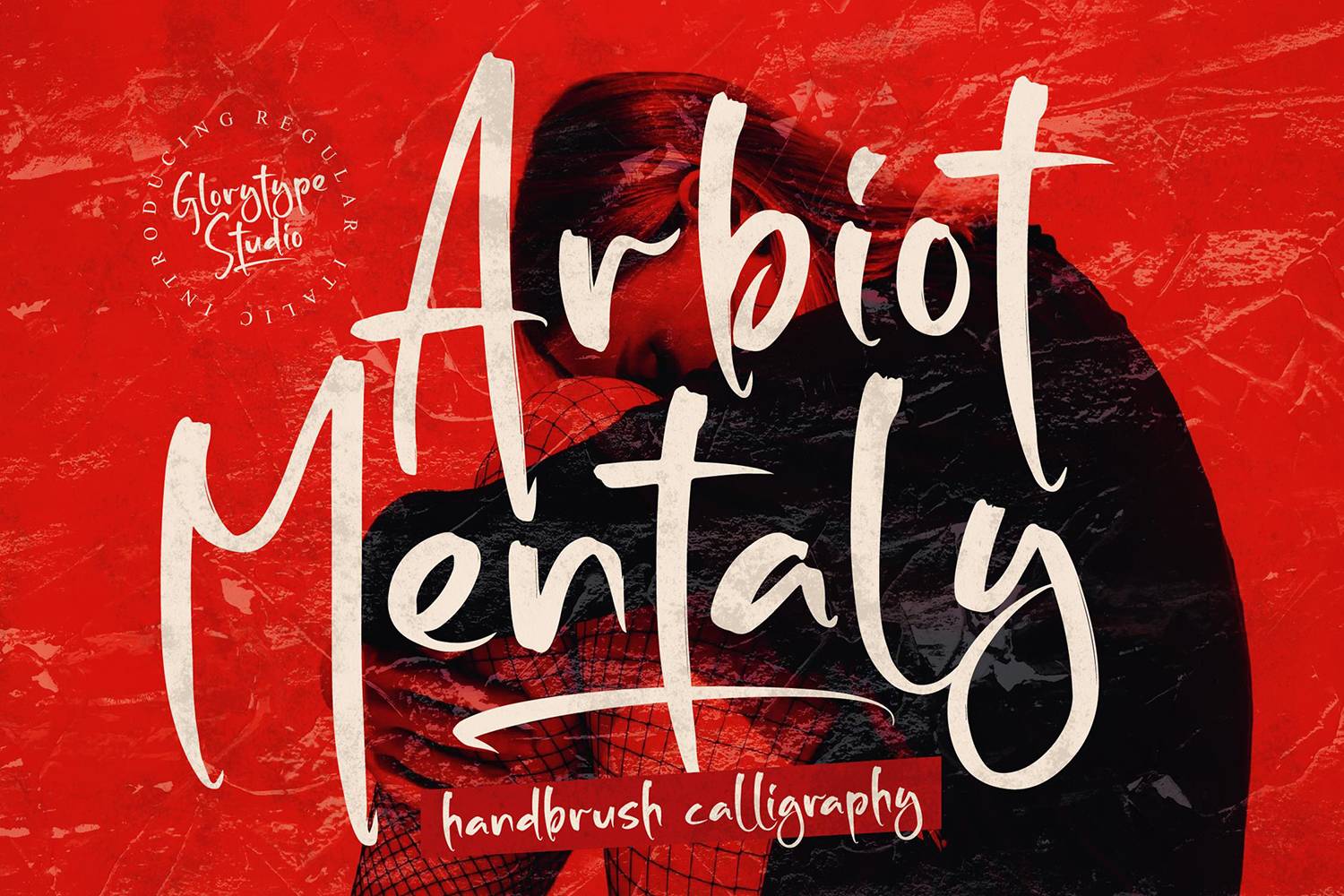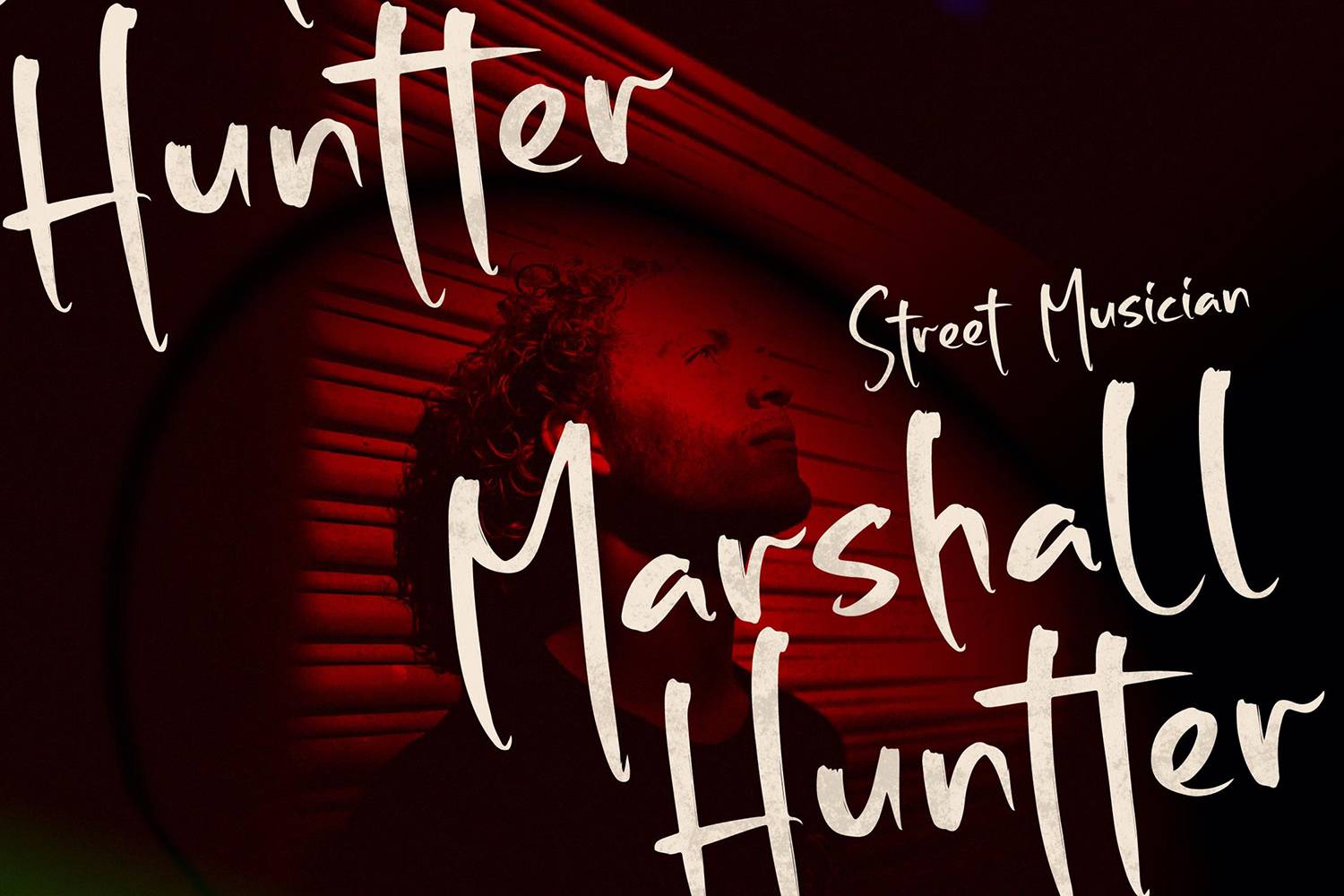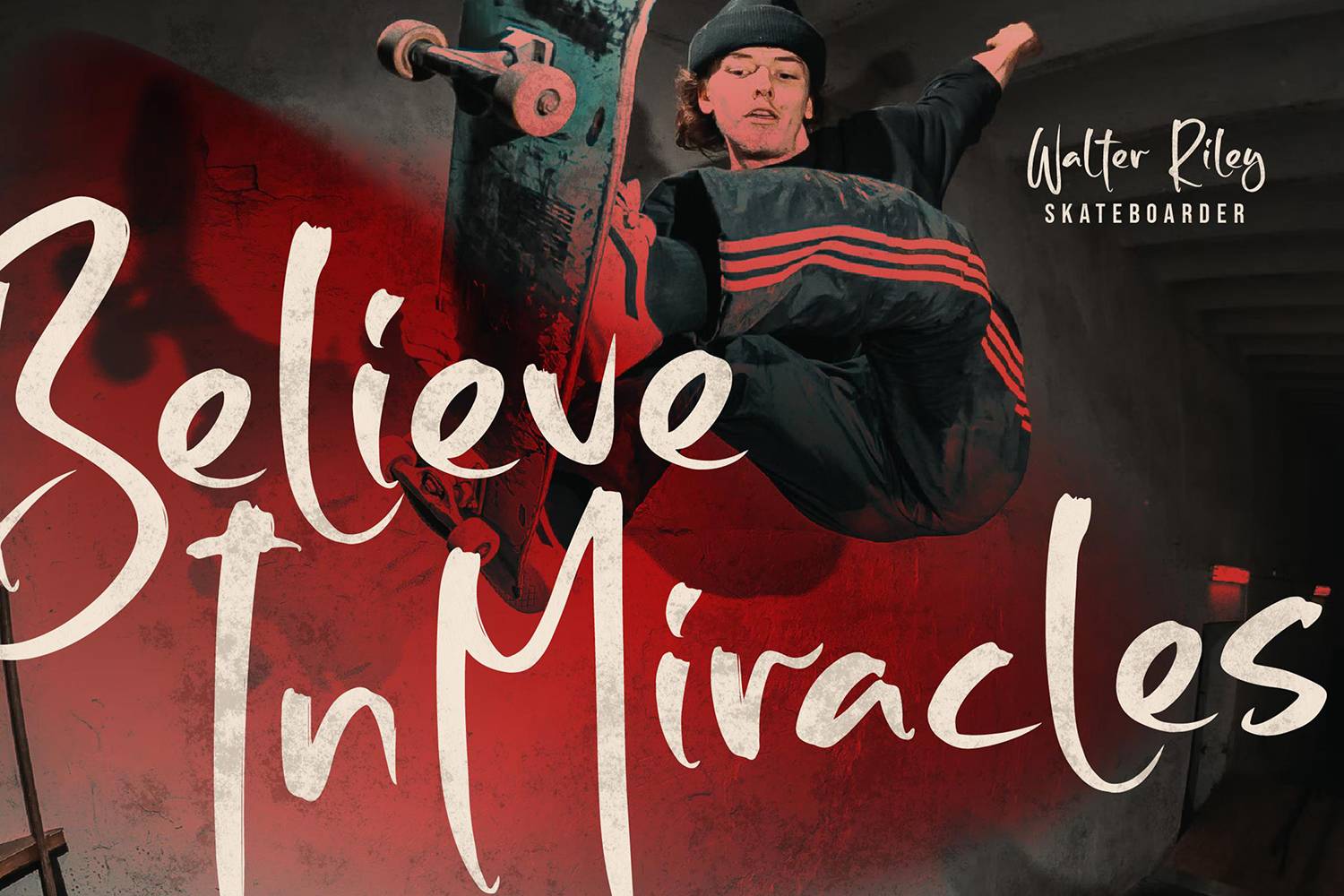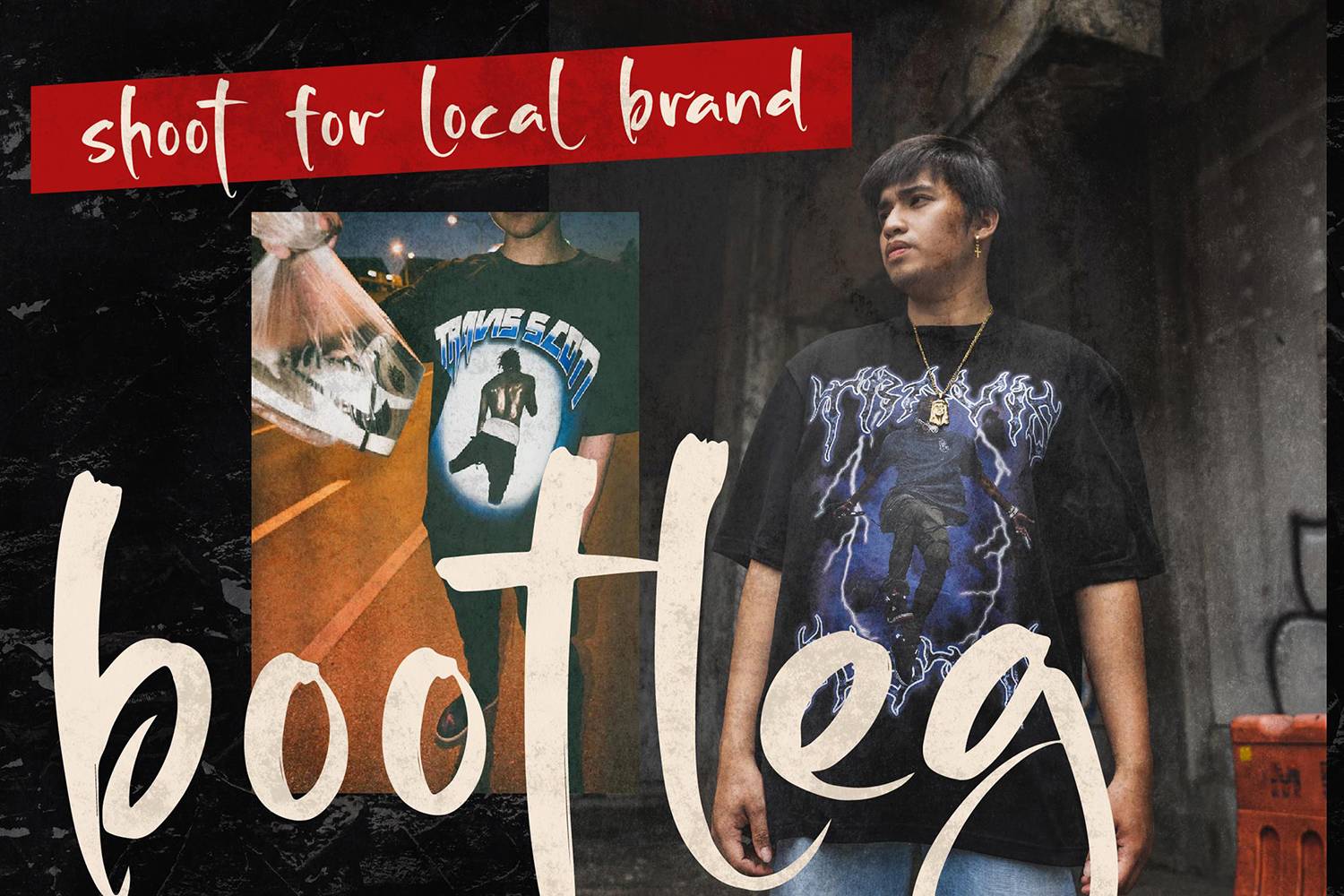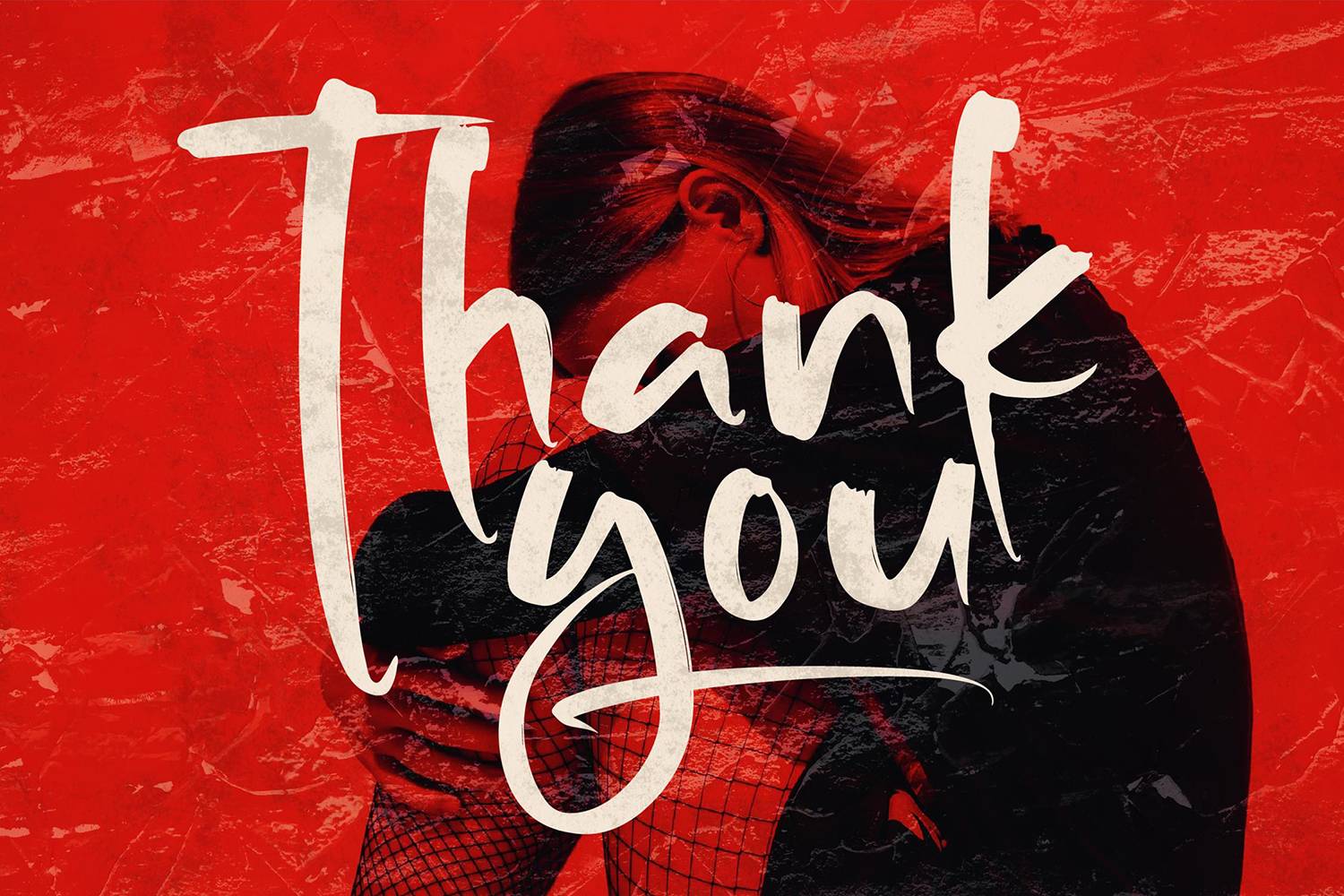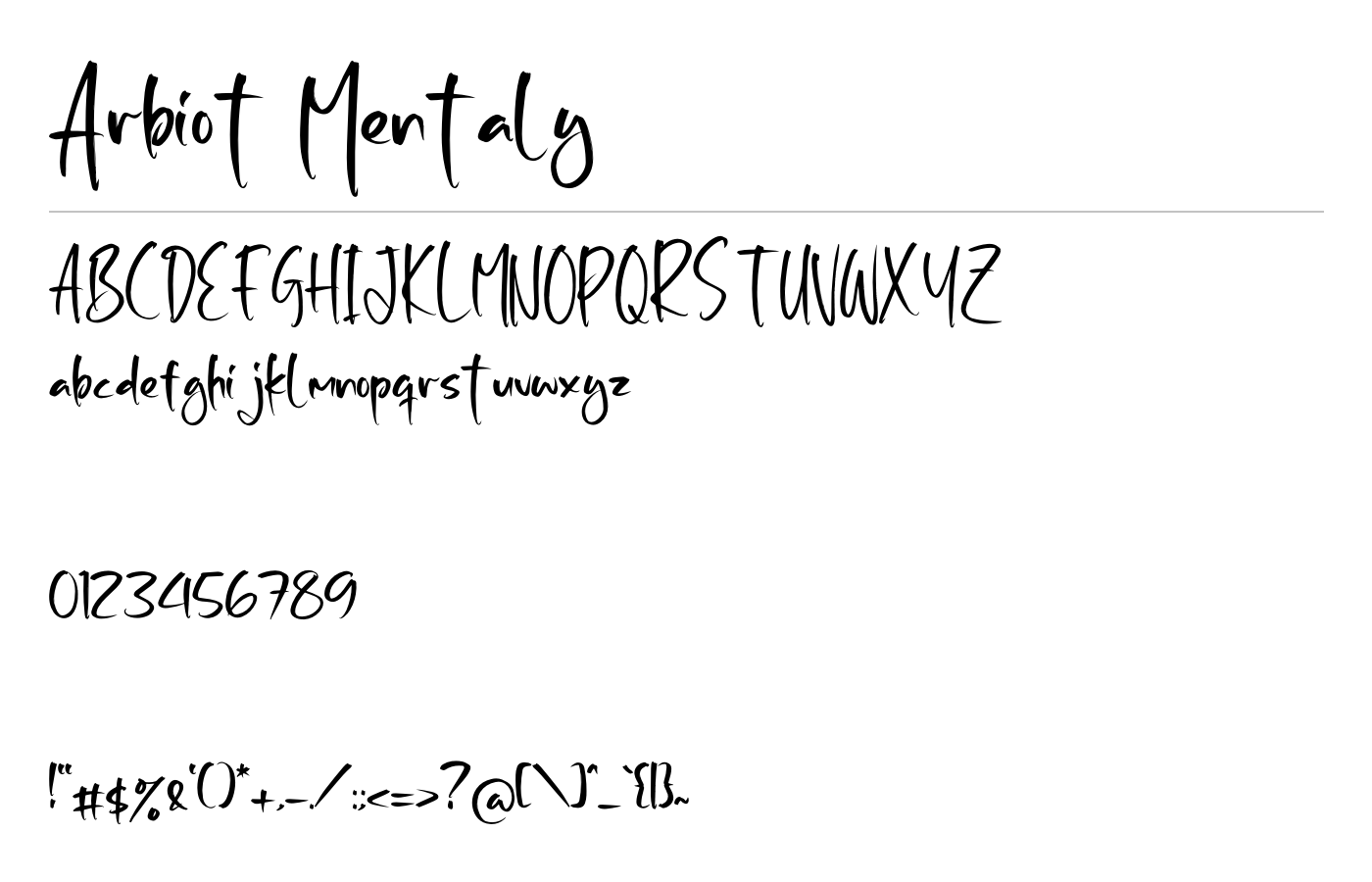
Arbiot Mentaly is a playful and expressive handwritten font with tall, slender letterforms and irregular strokes that give it a casual, artistic flair. Its light weight and slightly uneven lines add a sense of spontaneity and personality, making it perfect for creative projects, informal branding, and invitations where a unique, hand-crafted feel is desired. This font works well for headlines and accent text, adding a lively and approachable touch to any design.
Arbiot Mentaly Font
About Arbiot Mentaly Font